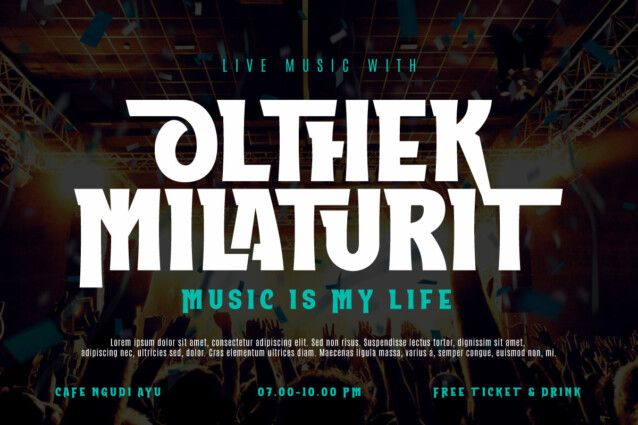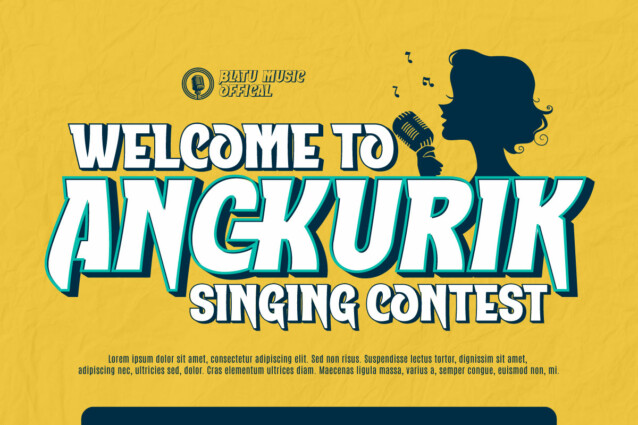
Aoolan Font is a loyal friend to music designers and art lovers who need a unique visual touch. As a sophisticated music display font, Aoolan features six stunning styles, including Regular, Outline, Shadow, and Slant.
Each Aoolan character is designed with precision to create a harmonious and artistic appearance. This font combines the clarity of Regular, the artistry of Outline, the tension of Shadow, and the elegance of Slant to provide endless possibilities in your designs.